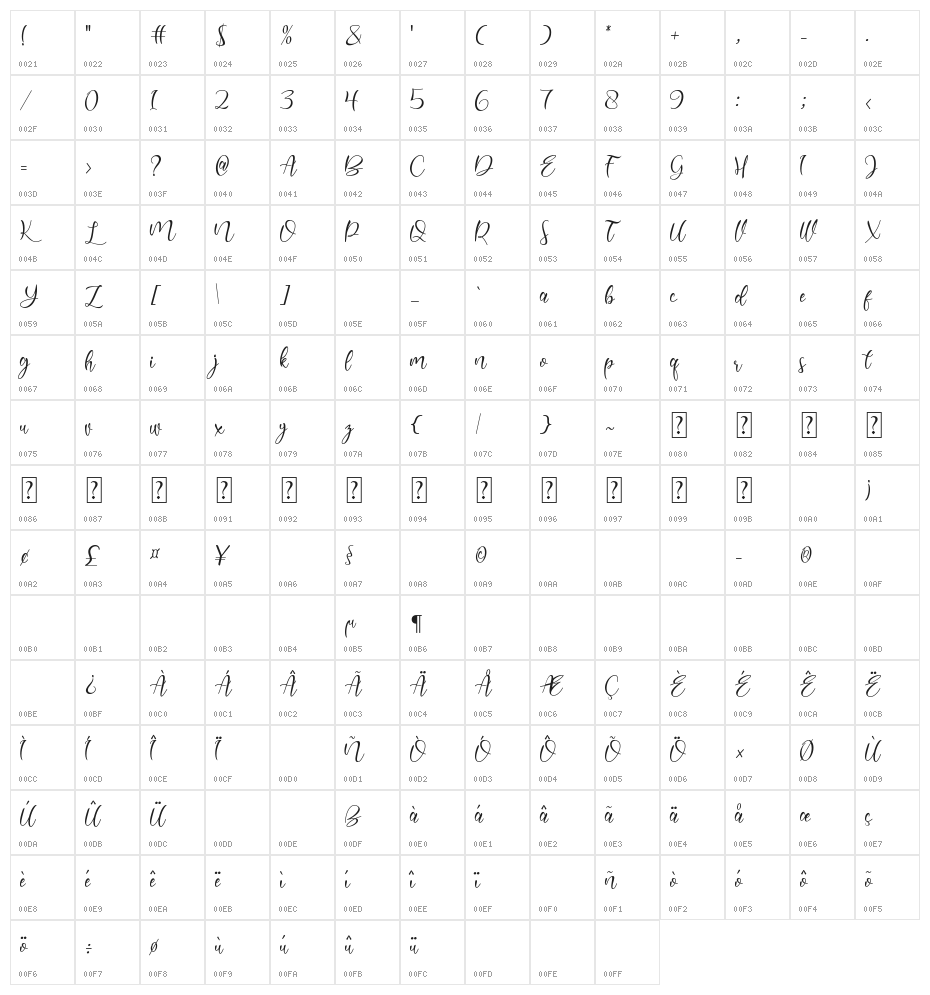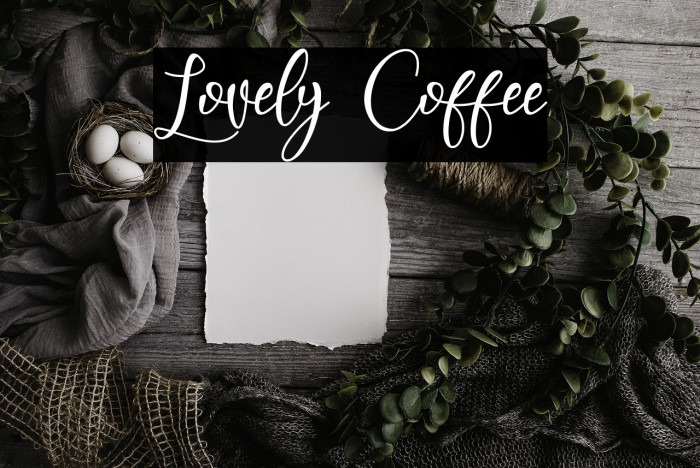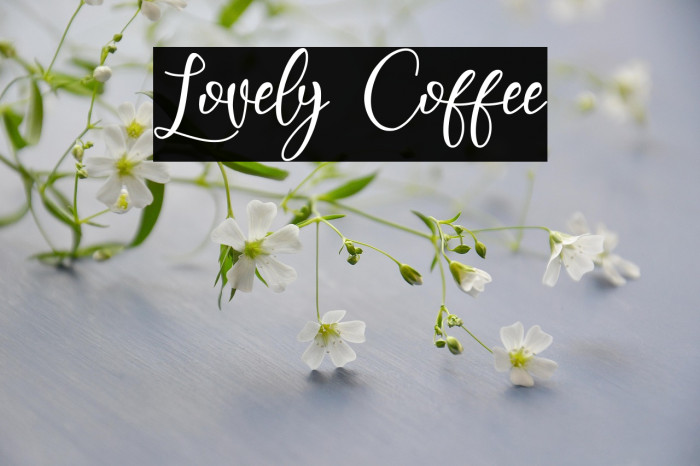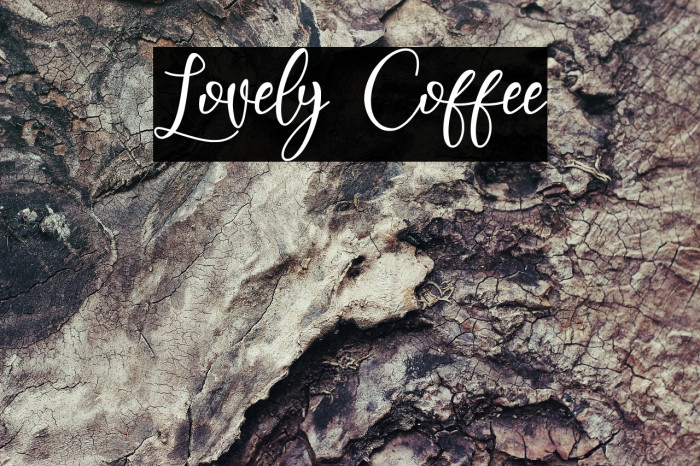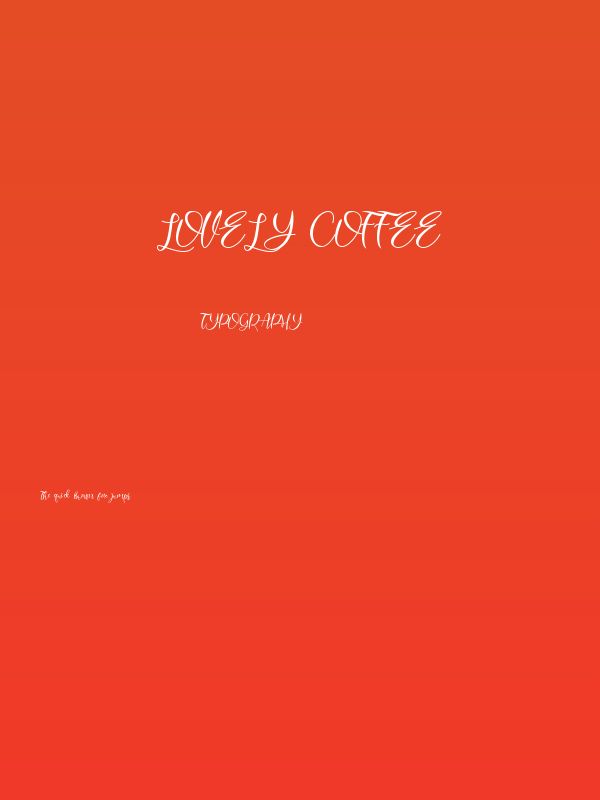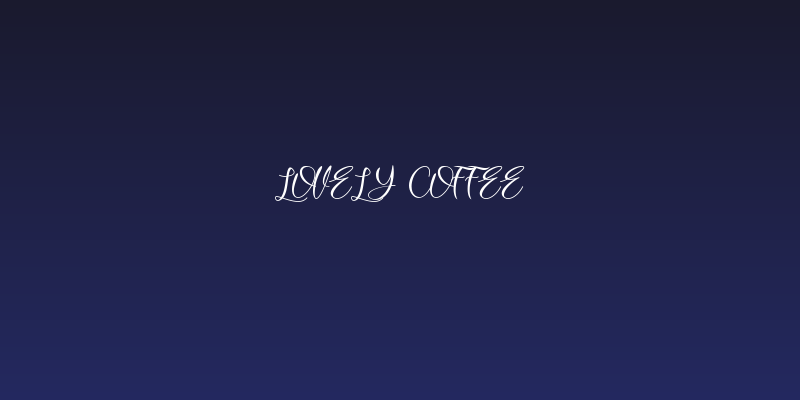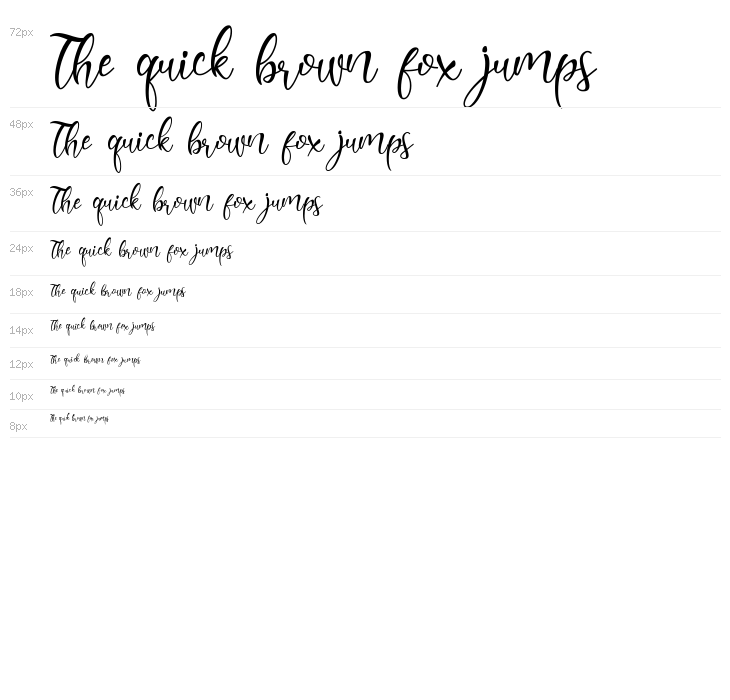
Lovely Coffee Font
Lovely Coffee Description
This font exudes a charming and elegant script style, characterized by its fluid and graceful strokes. The uppercase letters are particularly ornate, with sweeping curves and loops that give a sense of movement and sophistication. The lowercase letters maintain a consistent flow, enhancing readability while retaining an artistic flair. Numbers and special characters are designed to complement the overall aesthetic, ensuring a cohesive look across all elements. The font's delicate lines and stylish appearance make it ideal for projects that require a touch of elegance and personality.